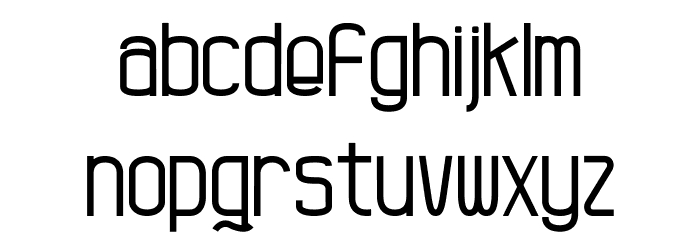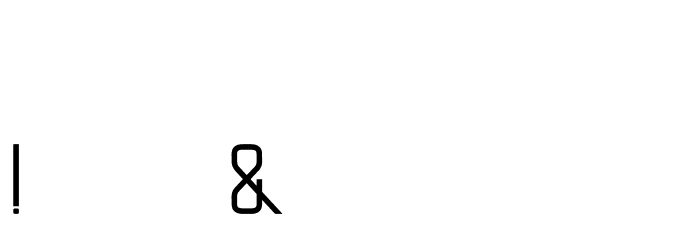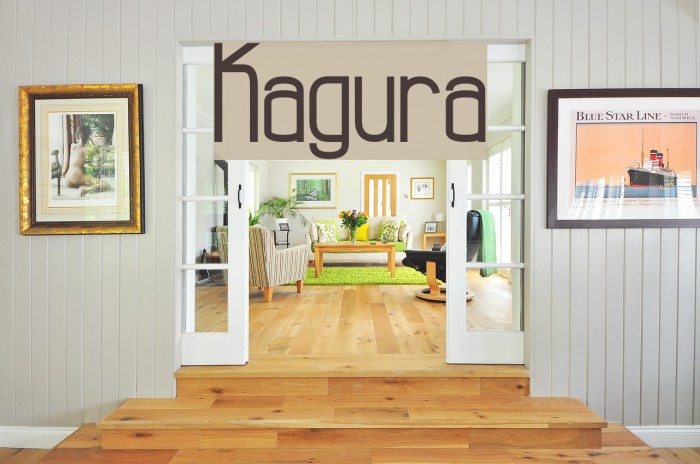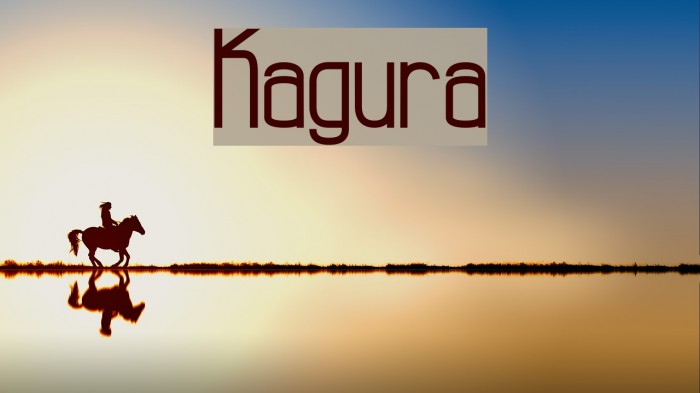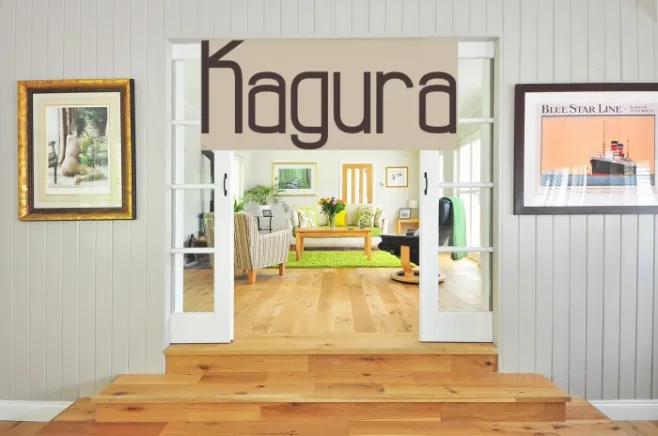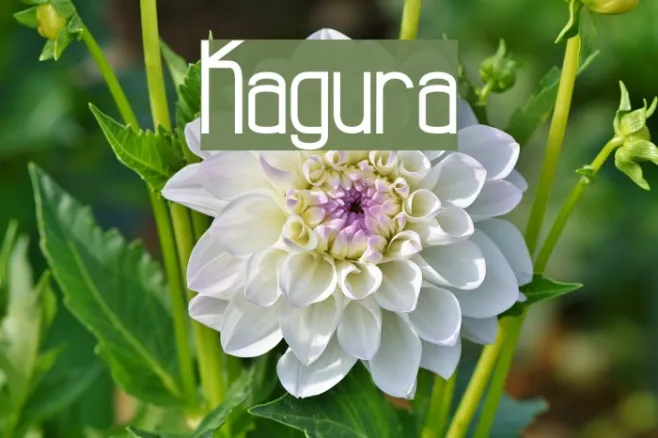
Kagura Font
This font features a modern and sleek design with a geometric structure. The characters are tall and narrow, giving it an elongated appearance. The strokes are consistent in width, creating a uniform look across all letters. The uppercase letters have a distinct, clean-cut style, while the lowercase letters maintain a similar aesthetic with slightly softer curves. The special characters are designed to match the overall style, ensuring cohesion throughout. This font is highly legible and versatile, making it suitable for various design applications.
A modern, geometric font with tall, narrow characters and consistent stroke width.
- Proposed Projects: Ideal for branding, editorial design, posters, and digital interfaces where a modern and clean look is desired.
- Use Case: Headlines, Logos, Digital Interfaces